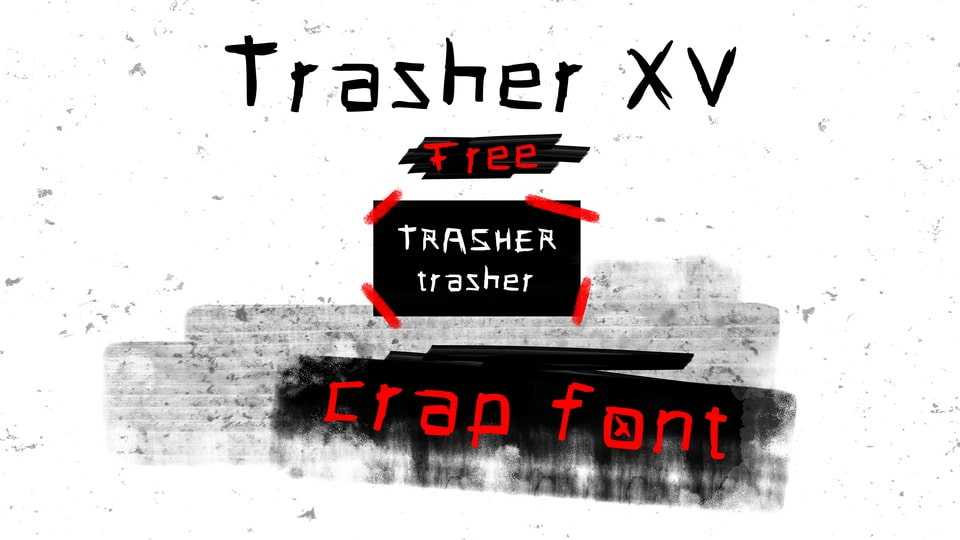
Download Trasher XV font, a bold and rough handwritten typeface inspired by urban graffiti tags. Trasher XV font would look good at display size for headlines in magazines or websites, movie posters or music covers artworks.